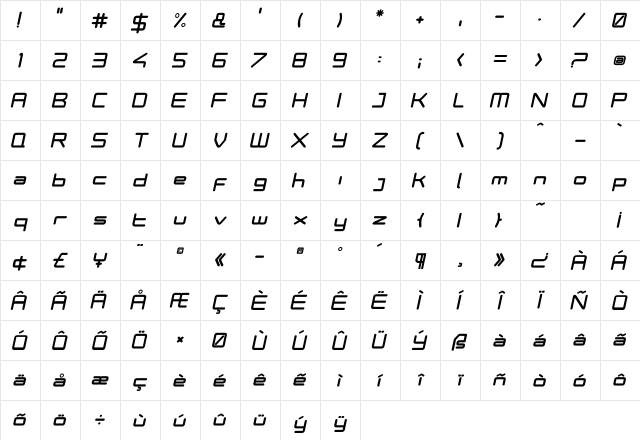
PhutureODC Bold Italic Free Font
PhutureODC Bold Italic
Design Context for PhutureODC
PhutureODC is a composed and adaptable typeface that performs quietly and consistently across a wide range of design contexts. The slanted form adds forward momentum and visual energy. Its bold stroke weight gives it real presence on the page.